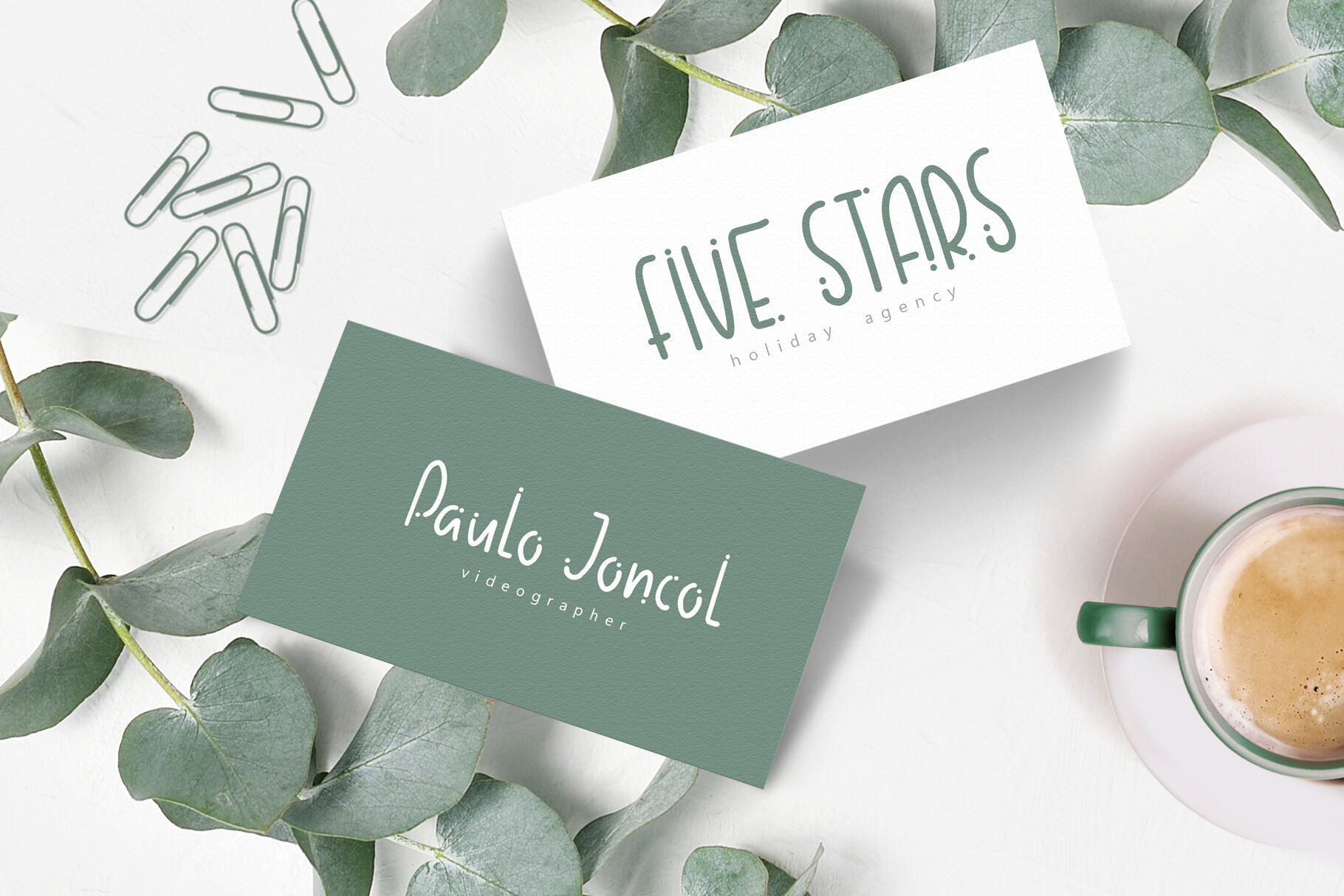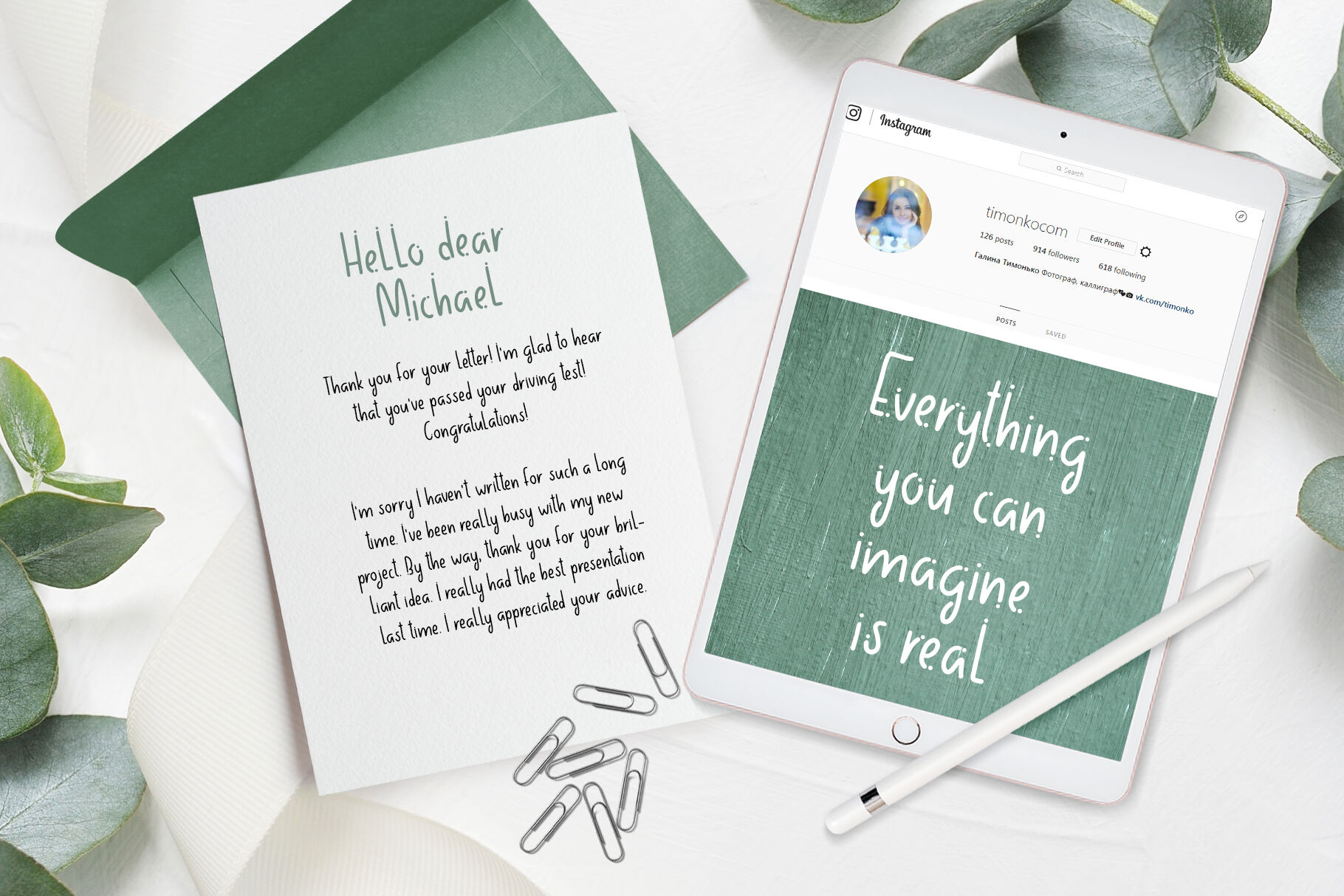
Drop Swing is a charming and romantic handmade font, perfect for holiday greeting cards, invitations, postcards and more! This elegant lettering font is made in Pointillism style, like a light breeze that gives freshness and dreaminess to your handmade creations.